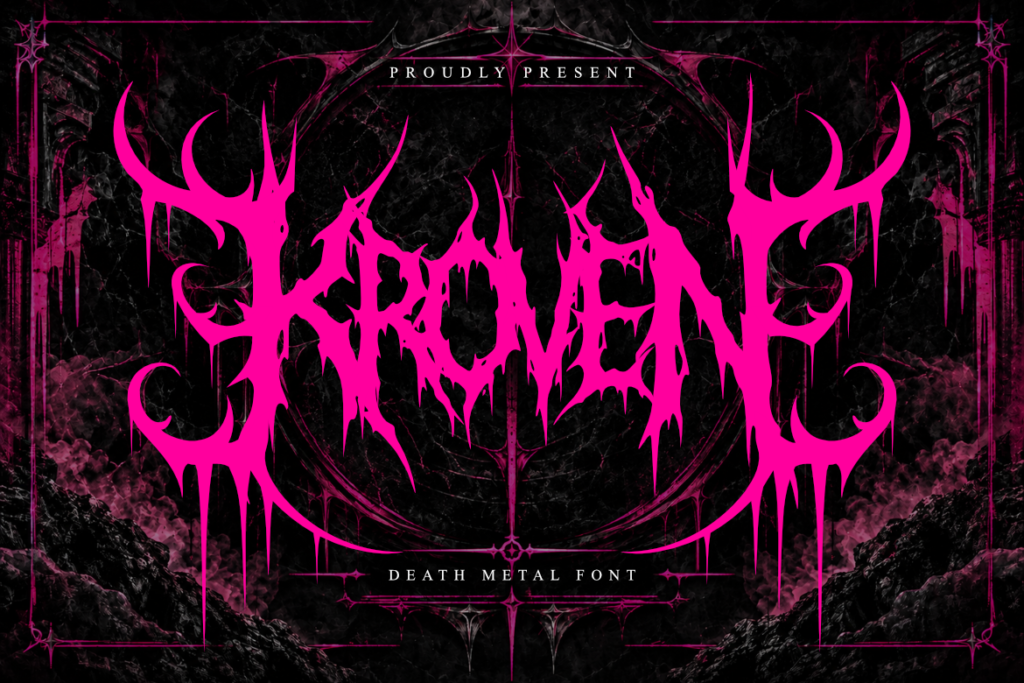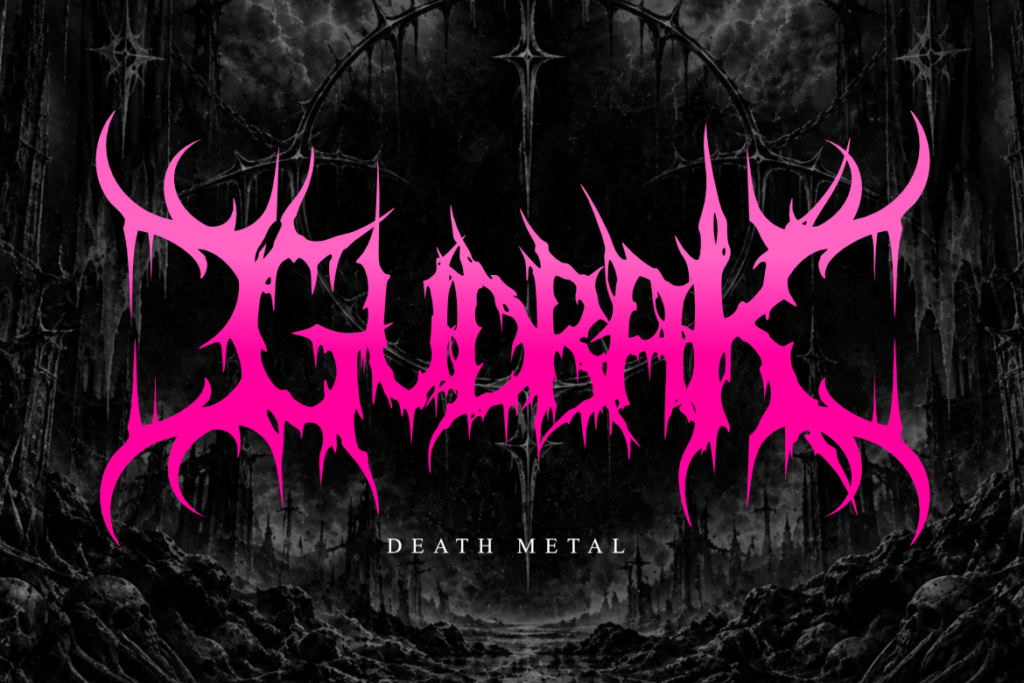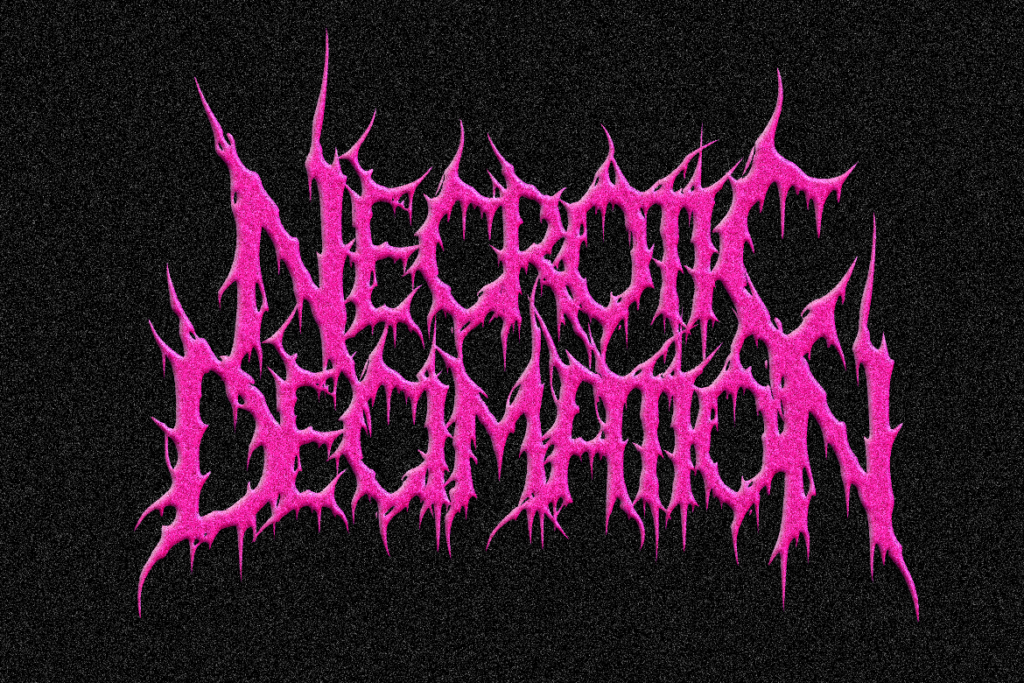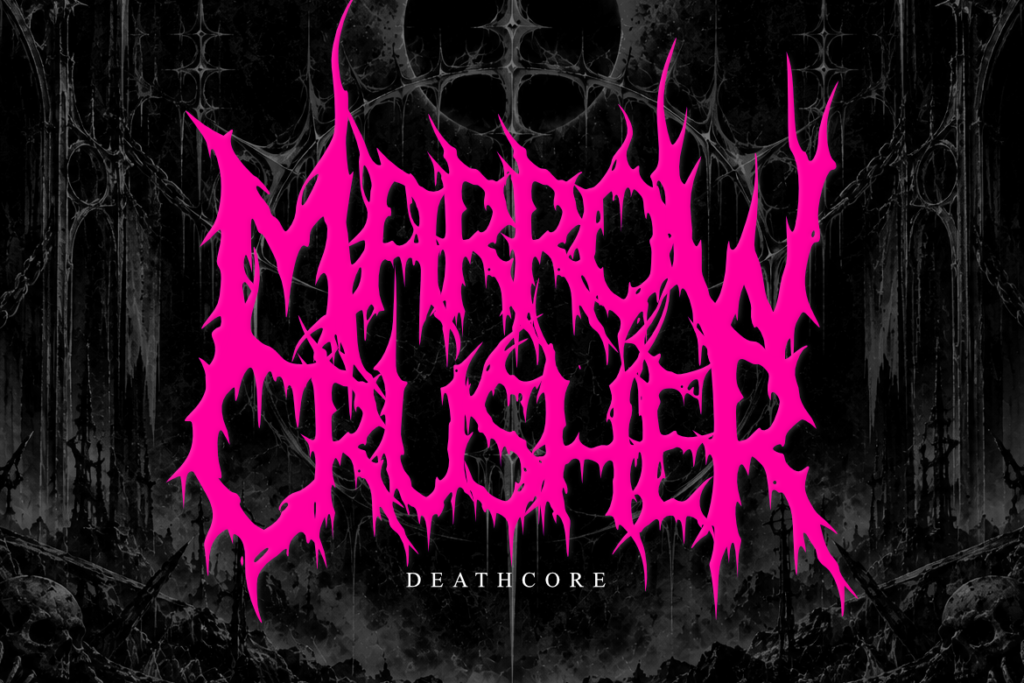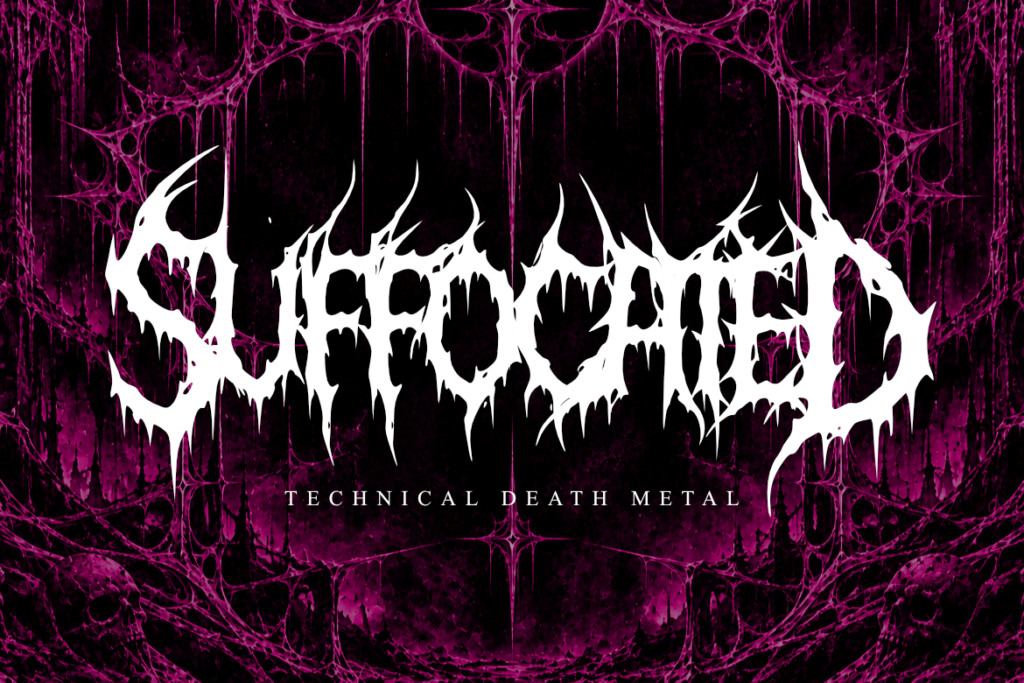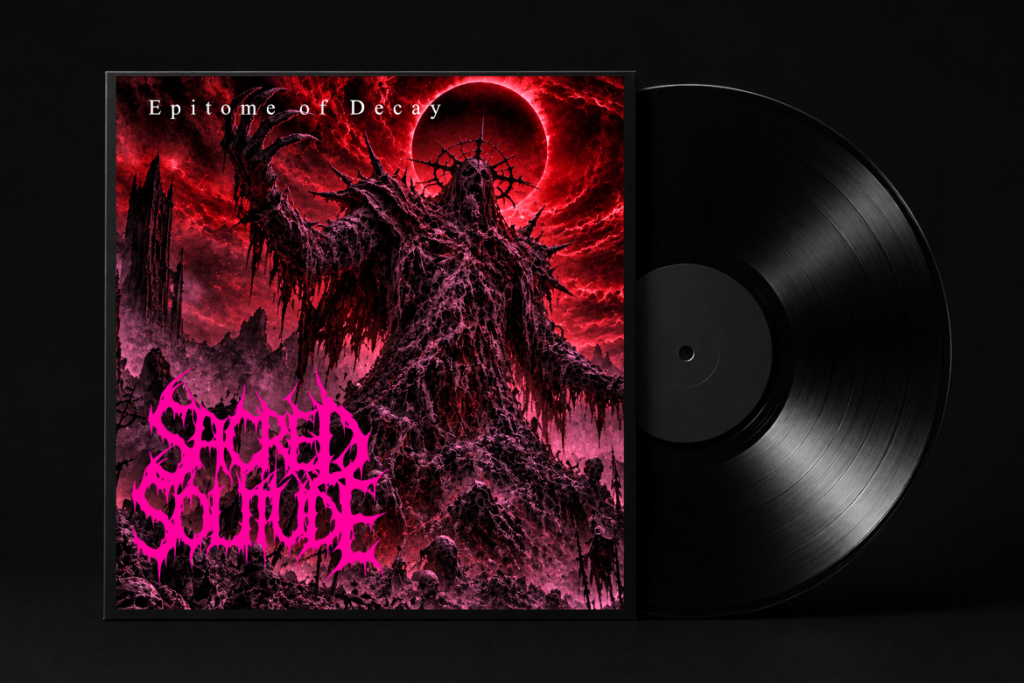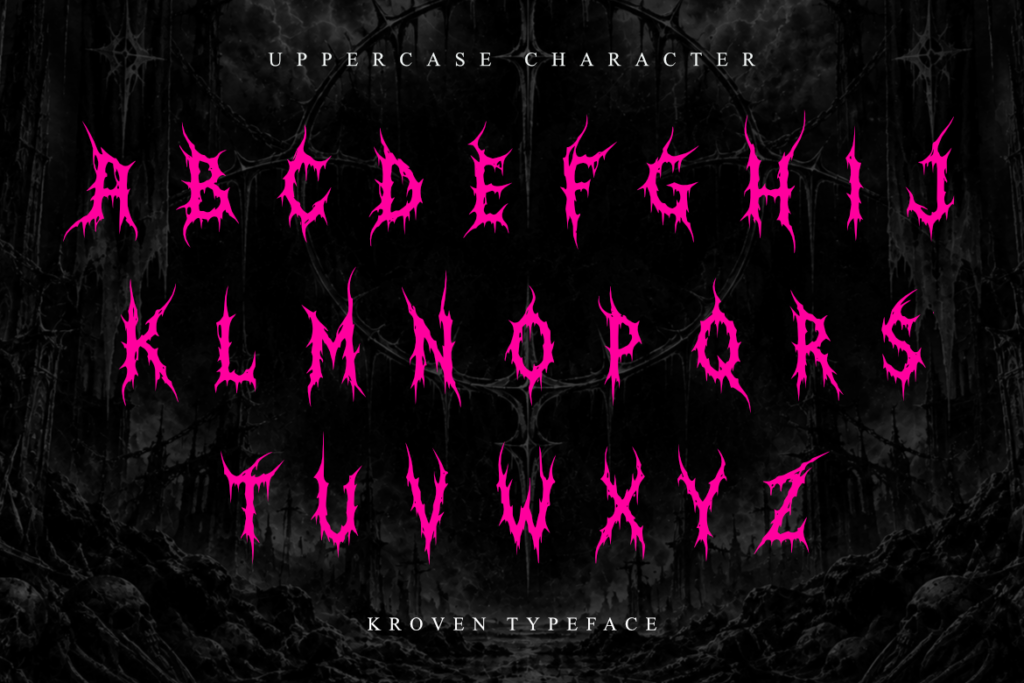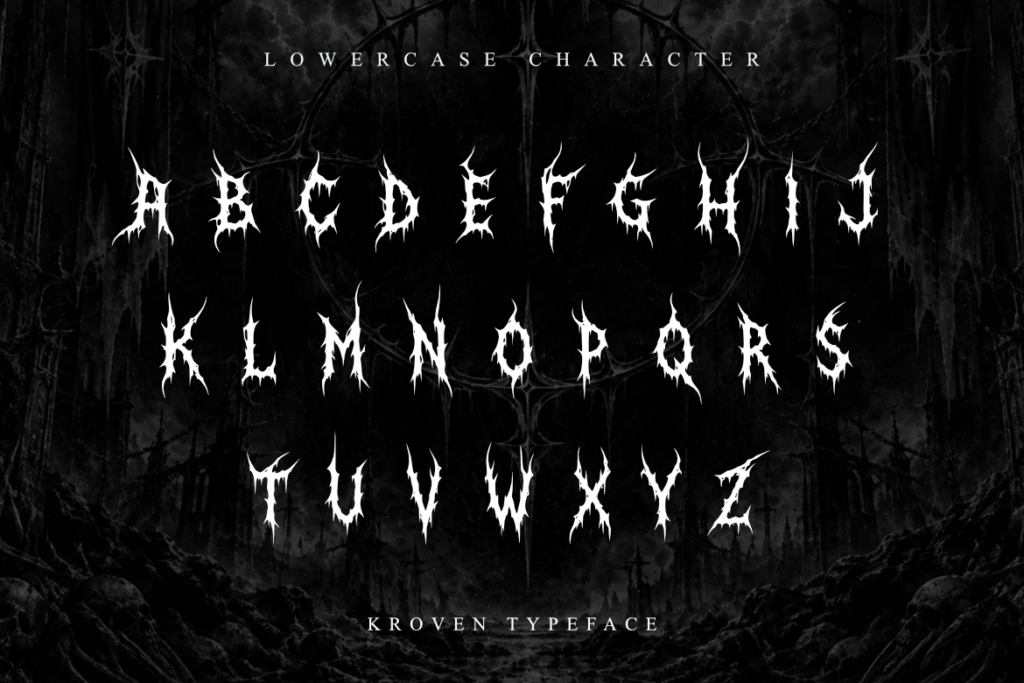
Kroven
Kroven is an extreme gothic display typeface designed around sharp silhouettes, thorn-like details, twisted curves, and dramatic symmetrical forms. Its dark and aggressive visual language draws from death metal, gothic artwork, occult aesthetics, and underground music culture. The highly detailed letterforms create a strong visual identity for projects that require an intense and atmospheric typographic style. Kroven is particularly suited to music branding, band identities, album artwork, gothic logos, horror titles, dark event graphics, and alternative visual identities. With its distinctive ornamental construction and extreme display character, Kroven is designed to make short titles, names, and headlines visually striking.